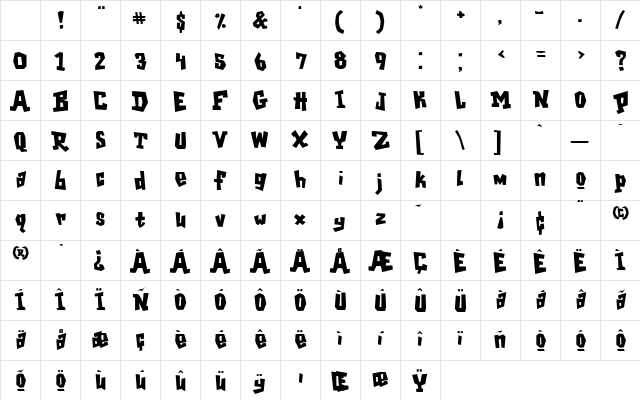
Complete GarageShock Heavy glyph index. Displaying only characters natively supported by GarageShock Heavy font.
GarageShock is a composed and adaptable typeface that performs quietly and consistently across a wide range of design contexts.